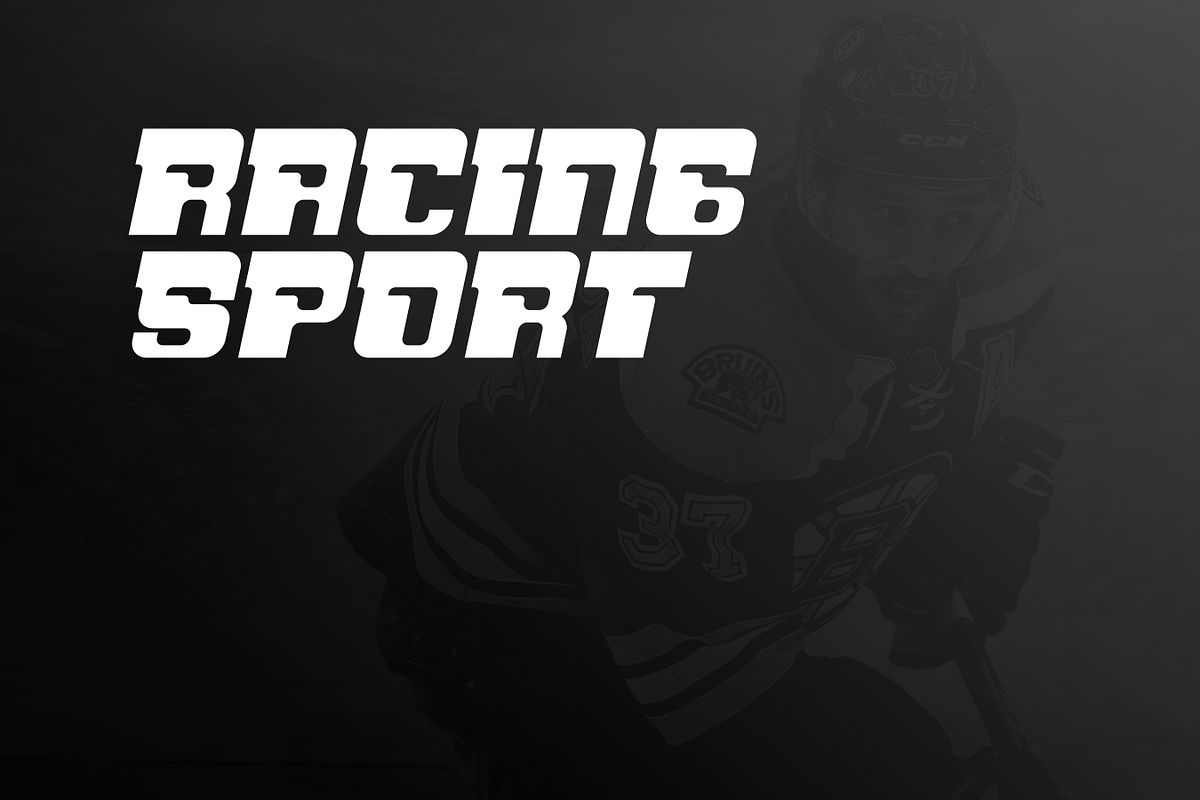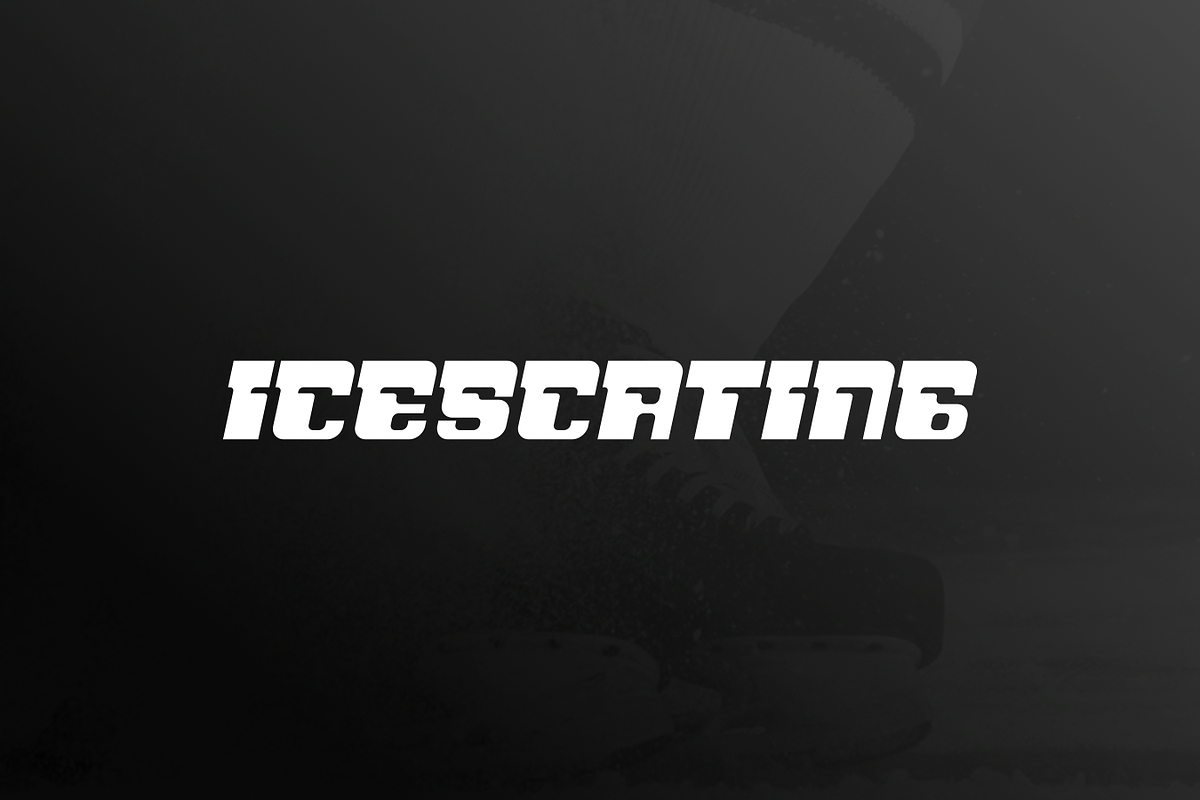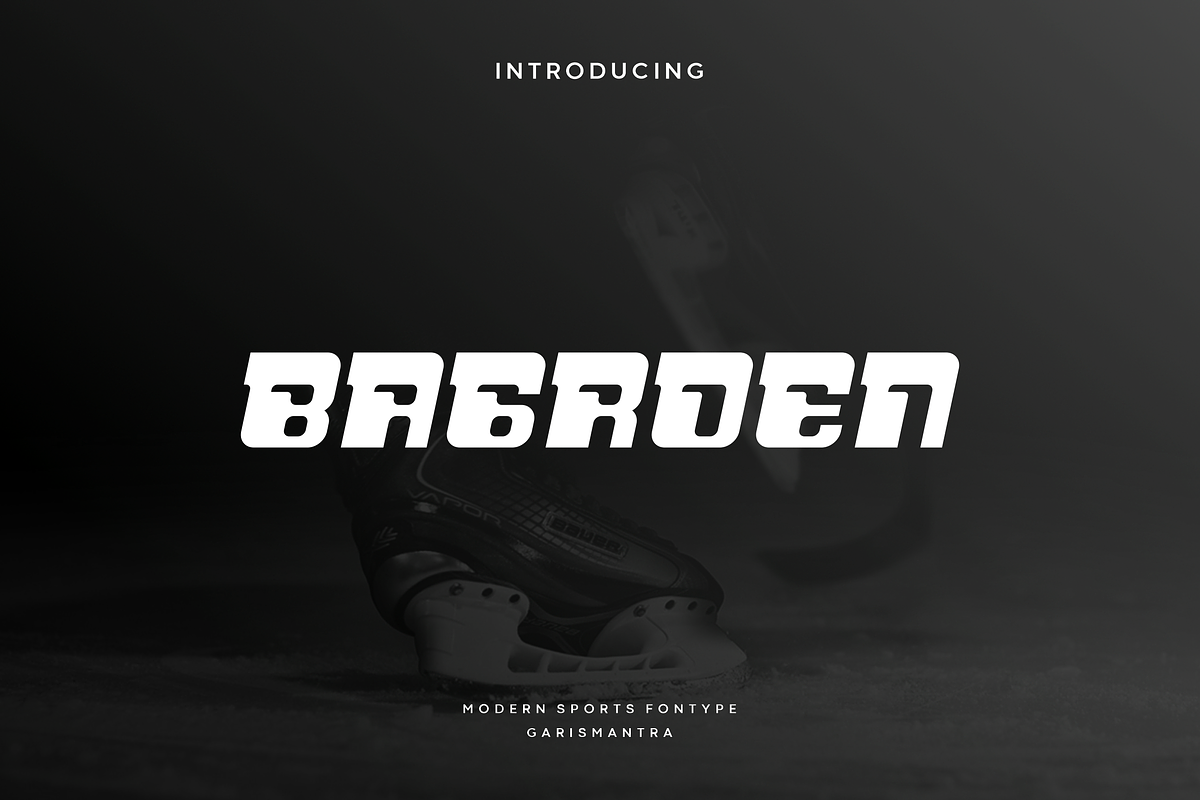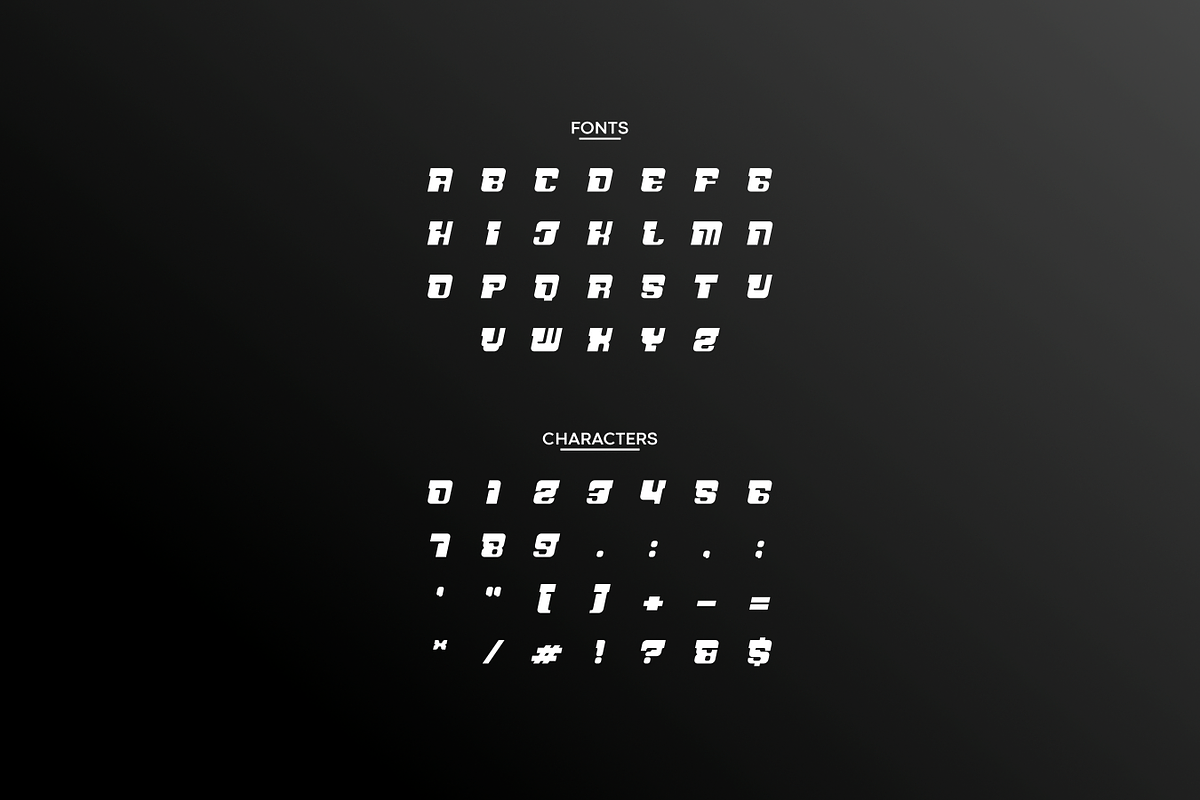
Bagroen
Bagroen is an awesome sports font, with a wide italic font style, accented with small modern cutouts at every corner giving it a dynamic slant. Ideal for titles, sports designs, logos, games, automotive, monograms or other modern dynamic text. Bagroen is better than other sports fonts, comes with a very masculine feel and is sharp giving more of a power and speed effect. Designed as a powerful and dynamic font with slightly different font styles, take a look and grab it right away for a different design experience.